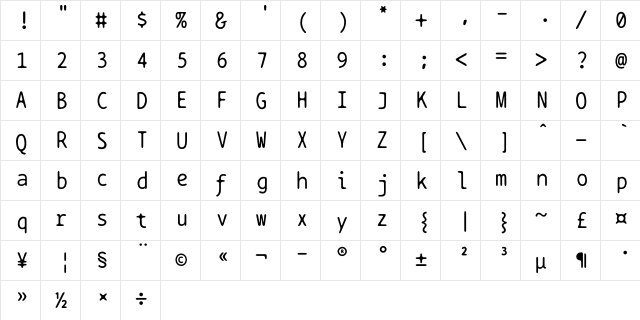
BPtypewrite Regular
| Foundry | George Triantafyllakos |
| Designer | George Triantafyllakos |
Design Context for BPtypewrite Typeface
BPtypewrite offers clean, dependable letterforms without strong stylistic allegiance, making it a practical choice for designers who need flexibility.
Pro Tip: Use BPtypewrite in both headline and body roles to test its range before committing to a single application.